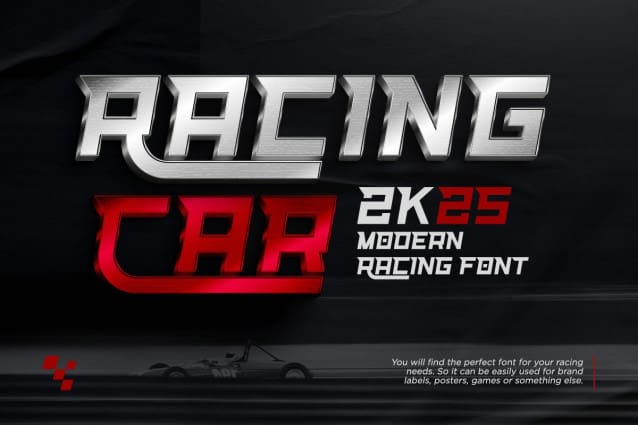
Racing Car Font
Racing Car Modern Racing Font is a familiar name to people who like to work in the automotive world. He is represented as a speedometer of vehicles that are moving on the streets. Speedo font comes with a simple and standard appearance. Not accompanied by any curves or additions, he is still charming and able to anesthetize every pair of eyes that see him.
Racing Car Modern Racing Font can be applied to event titles that use automotive as the theme, such as racing, touring, and off-road events. This font can contribute to building a good impression on everyone who sees the announcement about the event. The event mentioned earlier is an event that tries to gather a large number of people, so the use of font types must carefully.
In addition to the things mentioned above, Racing Car Modern Racing Font can use for writing on brochures whose contents are promotions and car rentals. The strong characteristics of this font can let people know the brochure contents just by looking at the title and font used. Knowledge books that contain theories about automotive can also take advantage of this type of font to be applied on the cover.